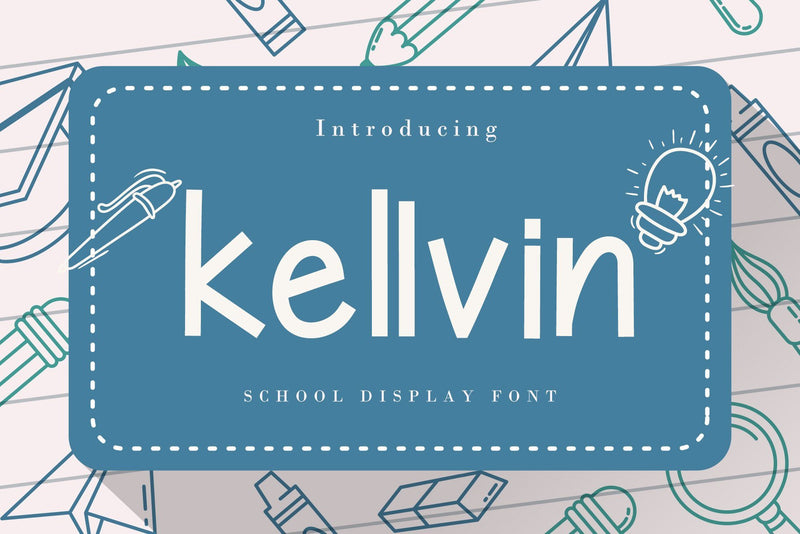
Kellvin - A School Display Font
Kellvin is a fun and friendly display font, that can easily stand out. Simple but with a strong visual effect, this font will instantly make your creation more appealing than any others.
- (a-z) titling, (a-z) swashes, ligatures